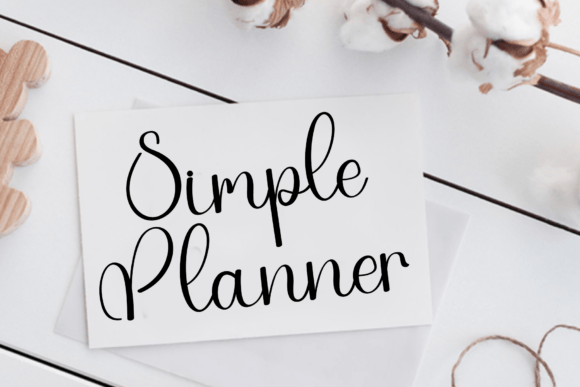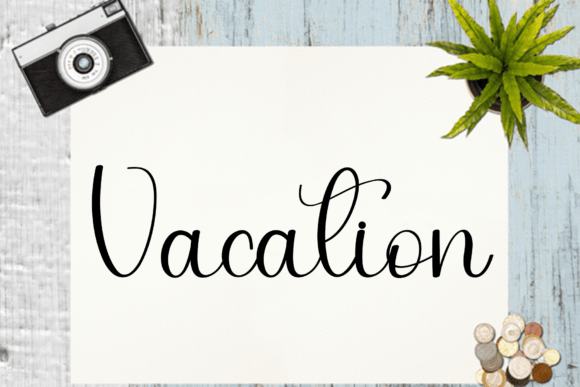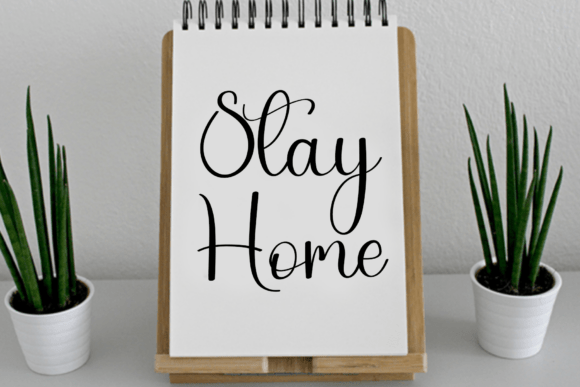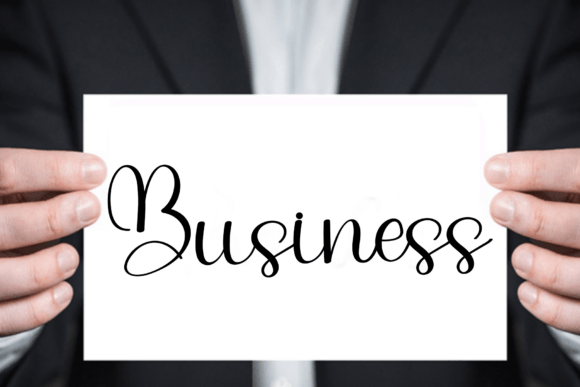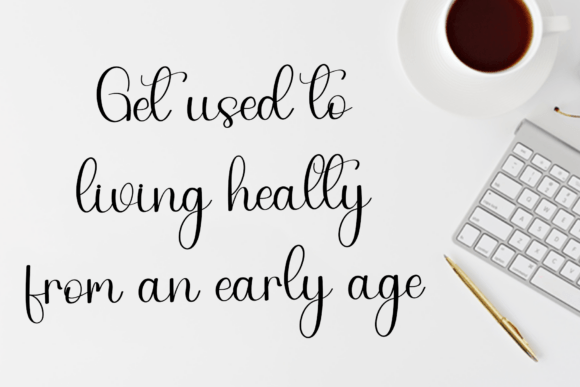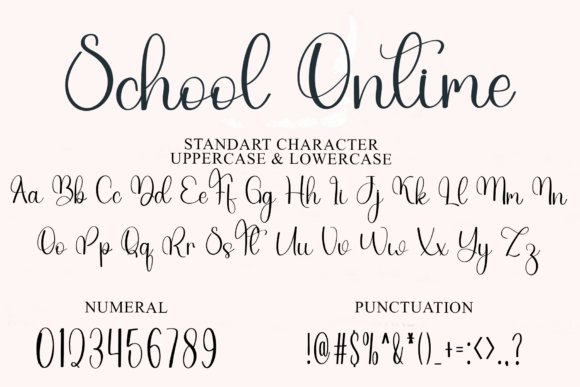
Introduction to School Ontime Font
Do you remember the moment when you stumbled upon the perfect font for your creative project? The one that made all your designs come alive and elevated your work to the next level? For many designers, that moment is a rare and precious find. But what if we told you that there’s a font that can bring that magic to your work, every single time? Say hello to the School Ontime Font, a stunning script font that exudes sophistication and elegance.
Whether you’re working on an independent stationery branding project or creating high-impact social media content for your educational platform, the School Ontime Font is an invaluable design resource. With its fluid, hand-drawn cursive letterforms and clean monolinear strokes, this font is perfect for designers who want to create high-quality content that stands out from the crowd.
Key Features of School Ontime Font
- High-quality design resource suitable for creative projects, educational materials, and more
- Includes a range of font styles and weights, allowing for versatility in design
- Designed with a modern and clean aesthetic, perfect for school and educational themes
- Great for creating engaging and professional-looking materials, such as presentations, posters, and more
Honest Review: School Ontime Font
- ✨ Unique and playful design style that’s perfect for kids-related projects or educational materials.
- ✨ Great for designers who want to create eye-catching and engaging content for their clients.
- ⚠️ Limited character set, which might not be suitable for long-form content or complex designs.
- ⚠️ Not ideal for formal or professional projects, as it may come across as too playful or childish.
– Microsoft Office applications for creating presentations and documents.
Tips for Getting the Most Out of School Ontime Font
To get the most out of School Ontime Font, consider the following tips:
- Experiment with different font sizes and styles to create visually appealing designs.
- Combine School Ontime Font with other design elements, such as images and shapes, to create engaging visuals.
- Use the font’s transparent background to create seamless designs with layered elements.
School Ontime Font is ideal for various creative projects, including:
- School and educational materials.
- Children’s books and publications.
- Social media graphics and advertisements.
Alternatives to School Ontime Font
Great Vibes is a beautiful, handwritten font perfect for creative projects and designs that require a touch of elegance. It features a high-quality design with a transparent background, making it ideal for backgrounds or overlays. Great Vibes is free to download and can be used for both personal and commercial projects.
Compared to School Ontime Font, Great Vibes has a more sophisticated and refined look, making it suitable for a wider range of design applications.